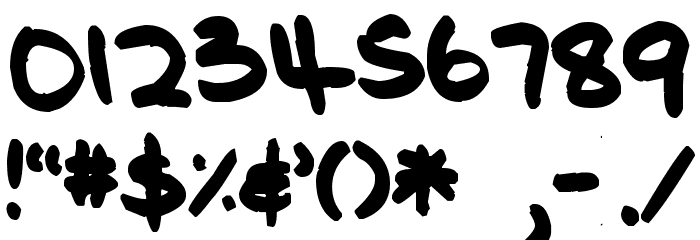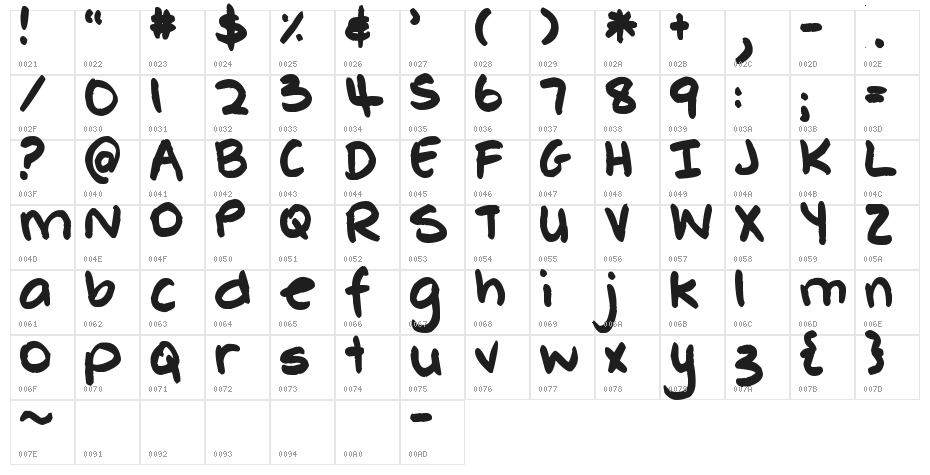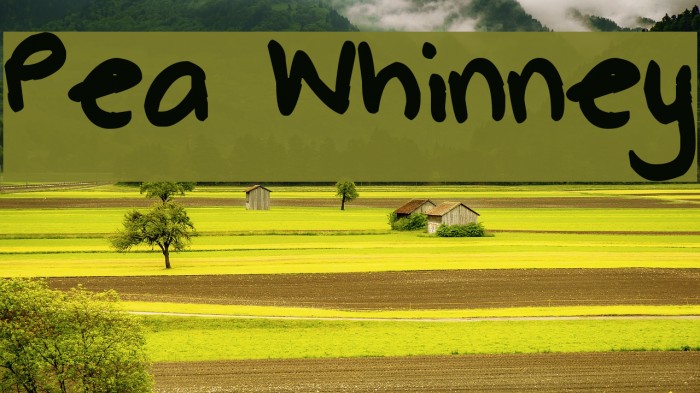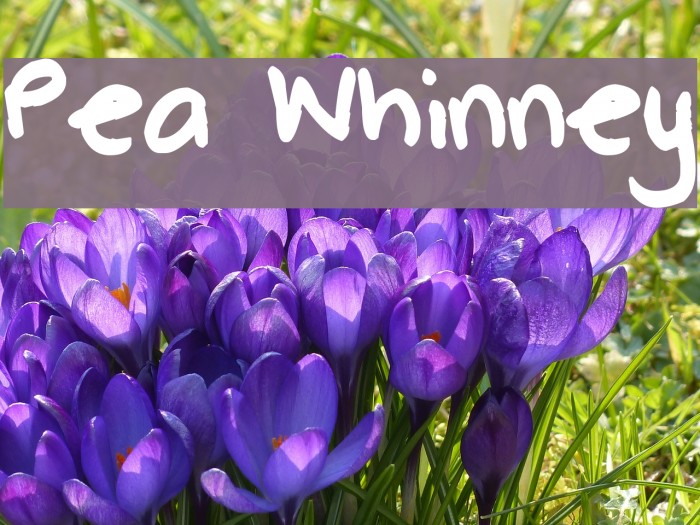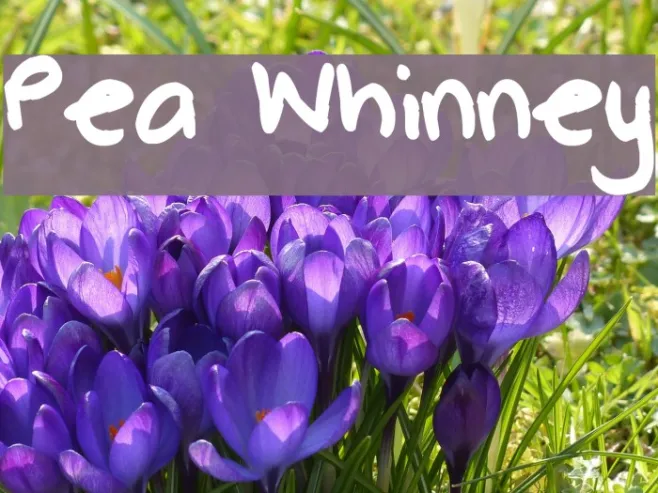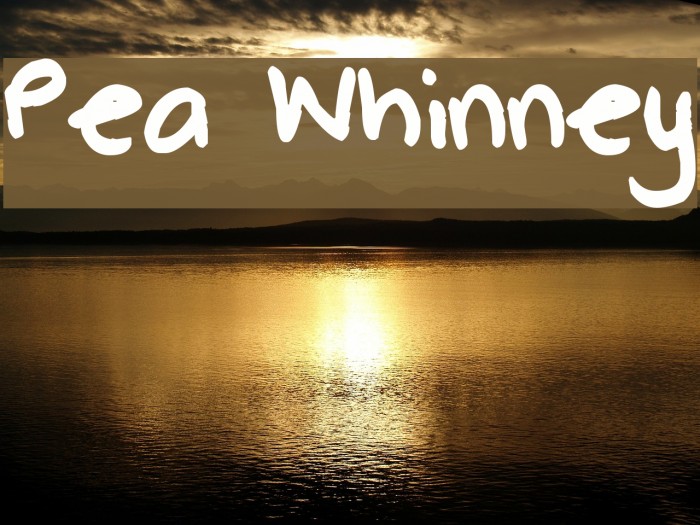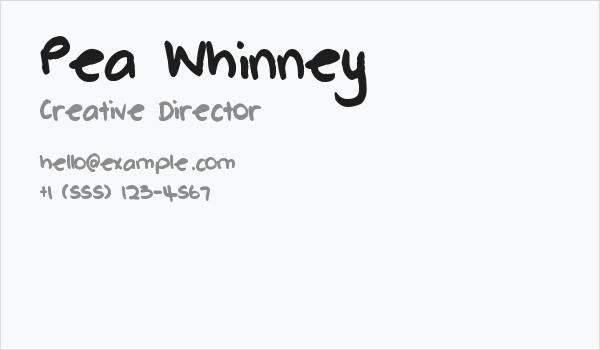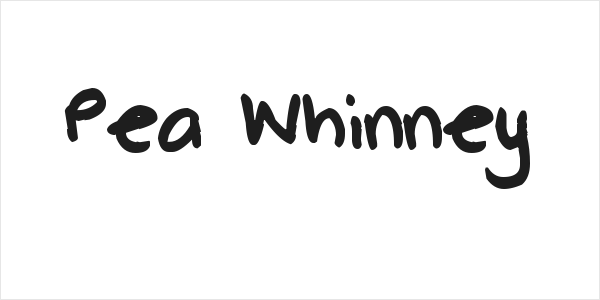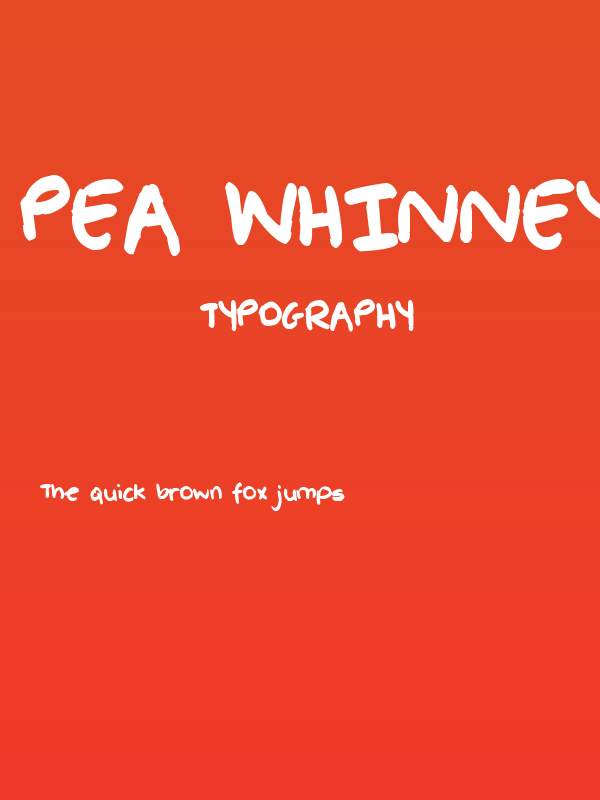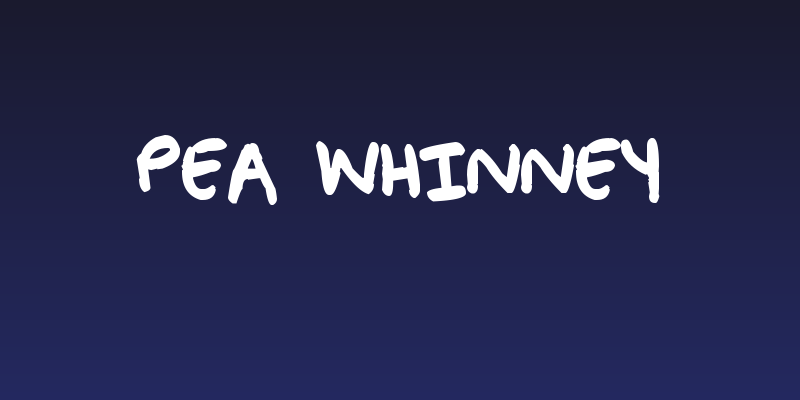
Pea Whinney Font
Pea Whinney Description
This playful and informal font features a handwritten style with a bold and slightly irregular appearance. The letters are rounded and have a casual, friendly feel, making it ideal for projects that require a personal touch. The uppercase and lowercase letters maintain a consistent style, with a slight slant that adds to the dynamic nature of the font. The numbers and special characters are equally expressive, ensuring a cohesive look across all text elements. The font's thick strokes and uneven lines give it a unique charm, perfect for creative and artistic applications.
Overall StylePlayful
Use CaseHeadlines, Logos, Informal text
Proposed ProjectsIdeal for greeting cards, children's books, playful branding, and social media graphics.